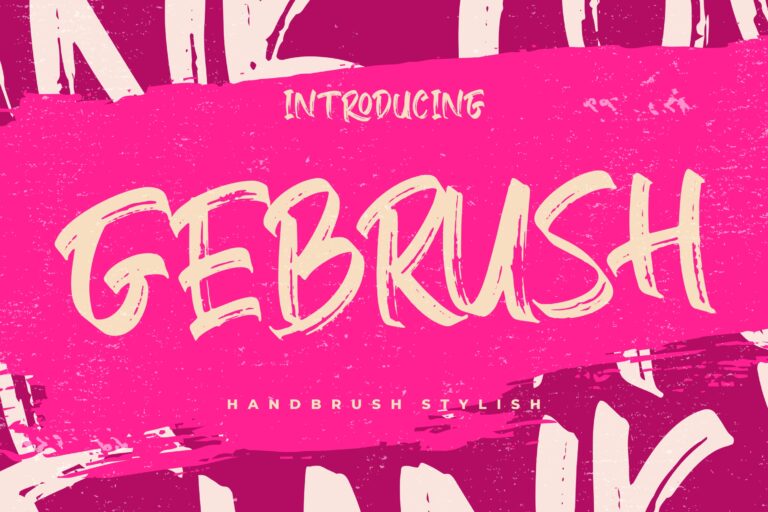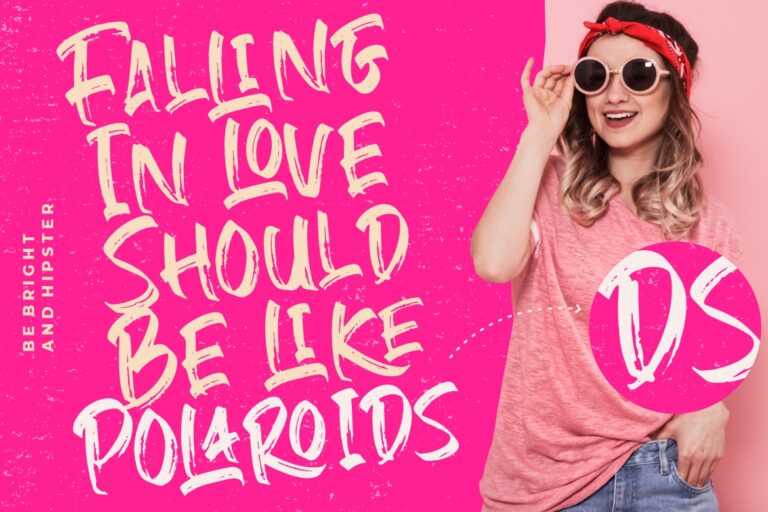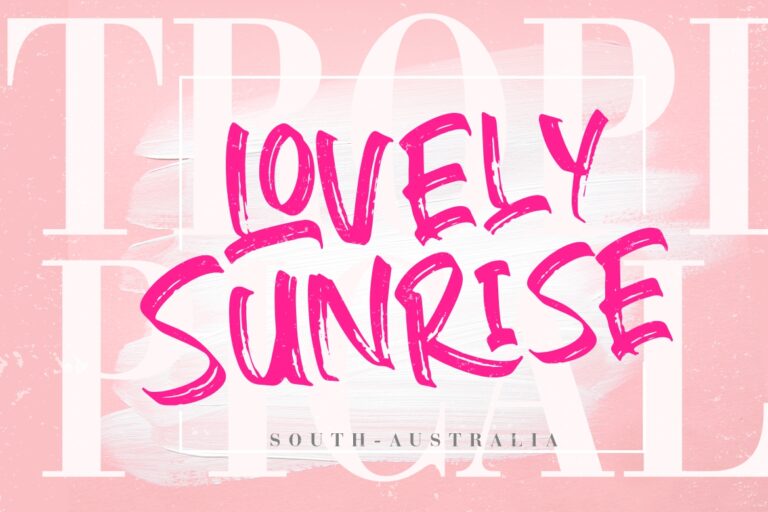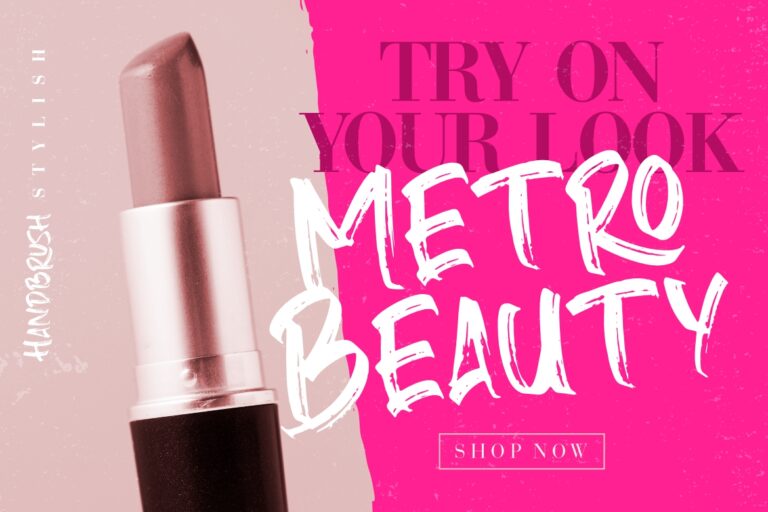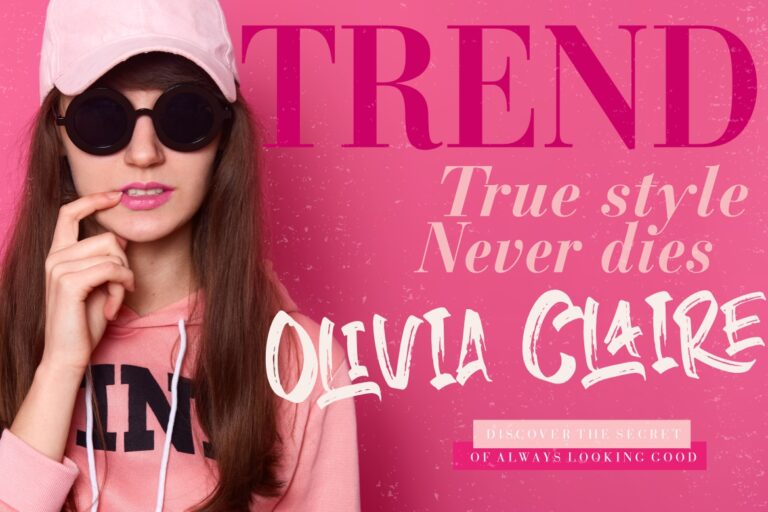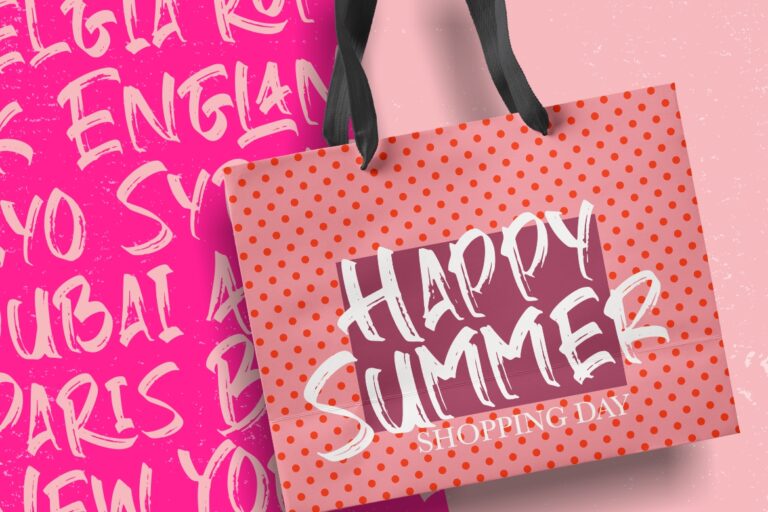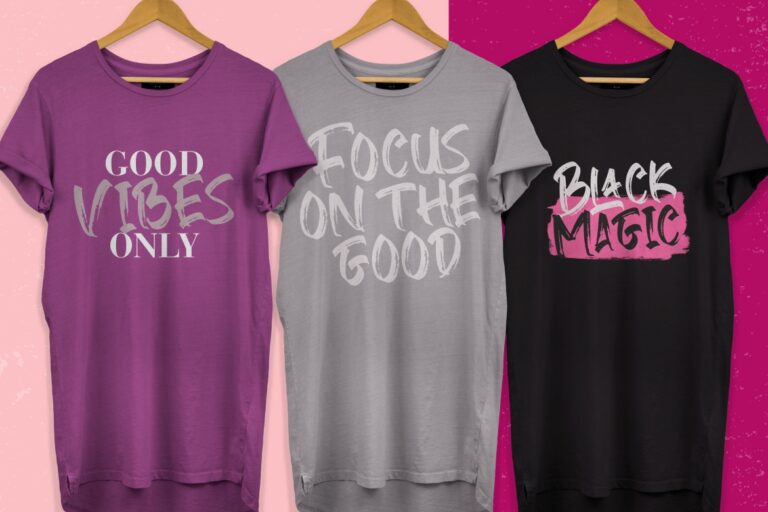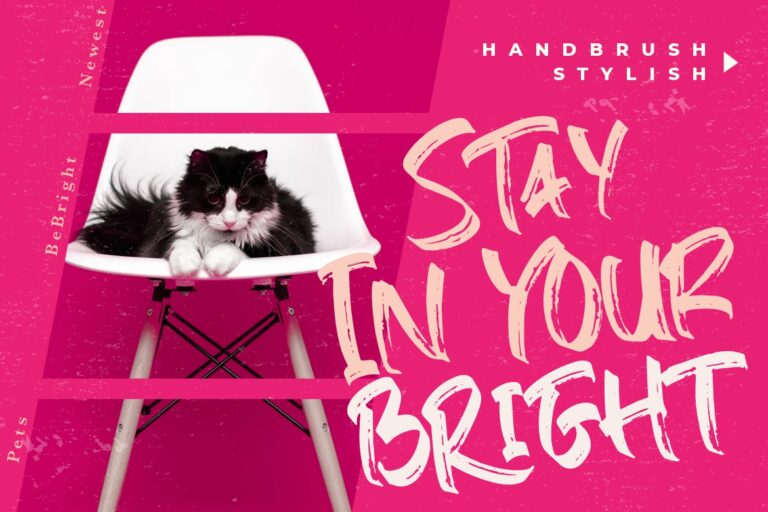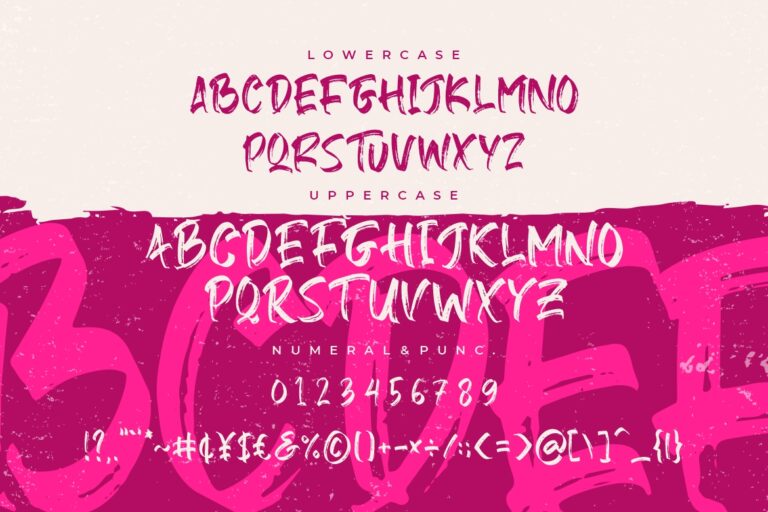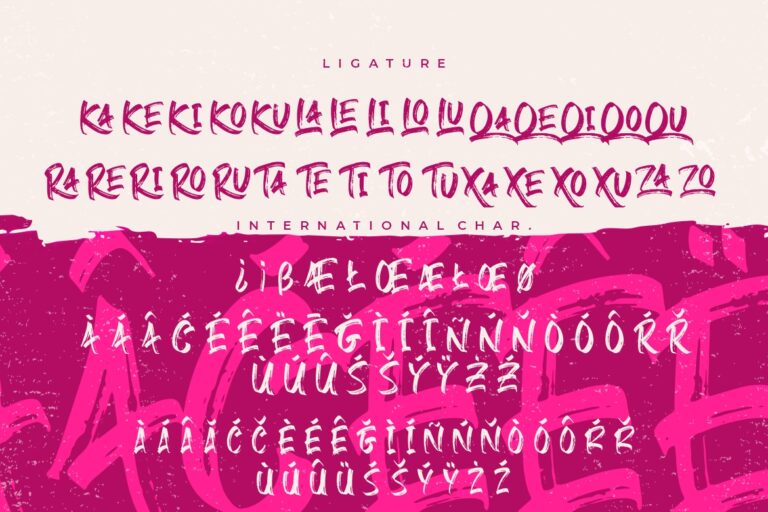
Gebrush a handbrush stylish font with natural scratch make looks bold and hard.
Gebrush would perfect for photography, watermark, social media posts, advertisements, logos & branding, invitation, product designs, label, stationery, wedding designs, product packaging, special events or anything that need handwriting taste.
- Ligature & Swashes
Gebrush Handbrush Stylish